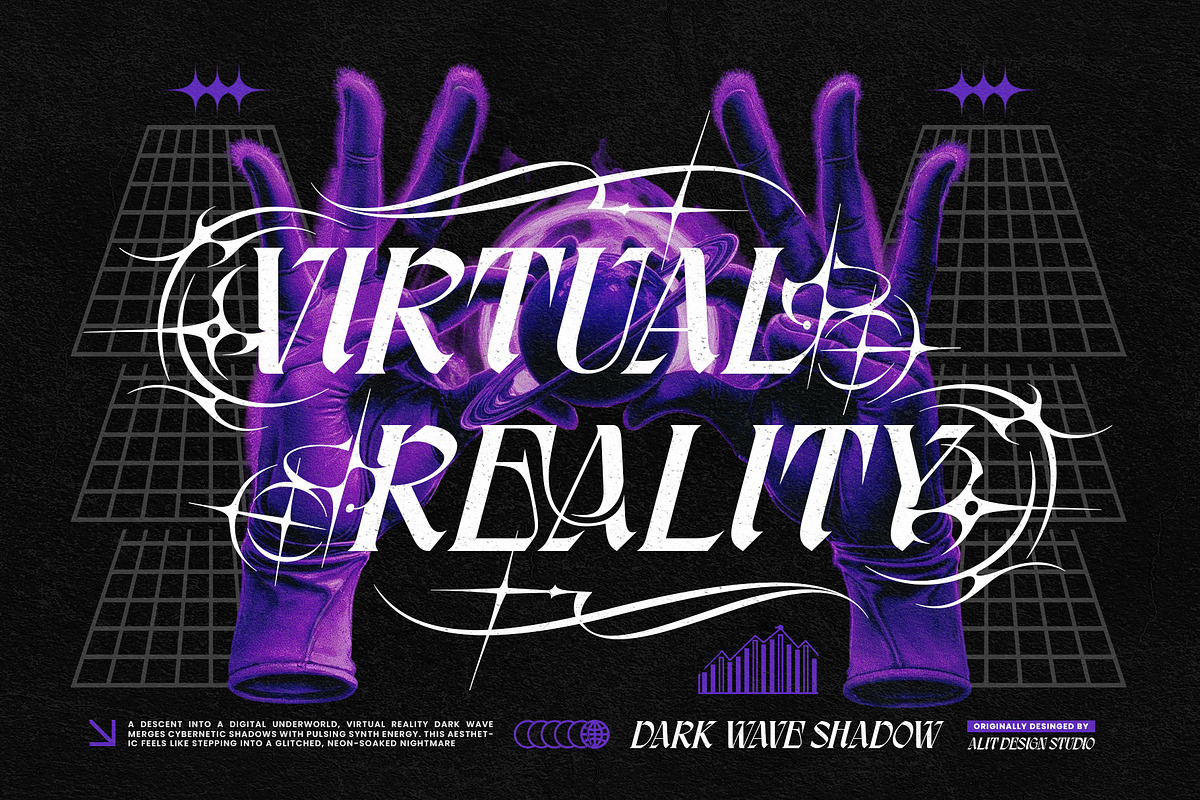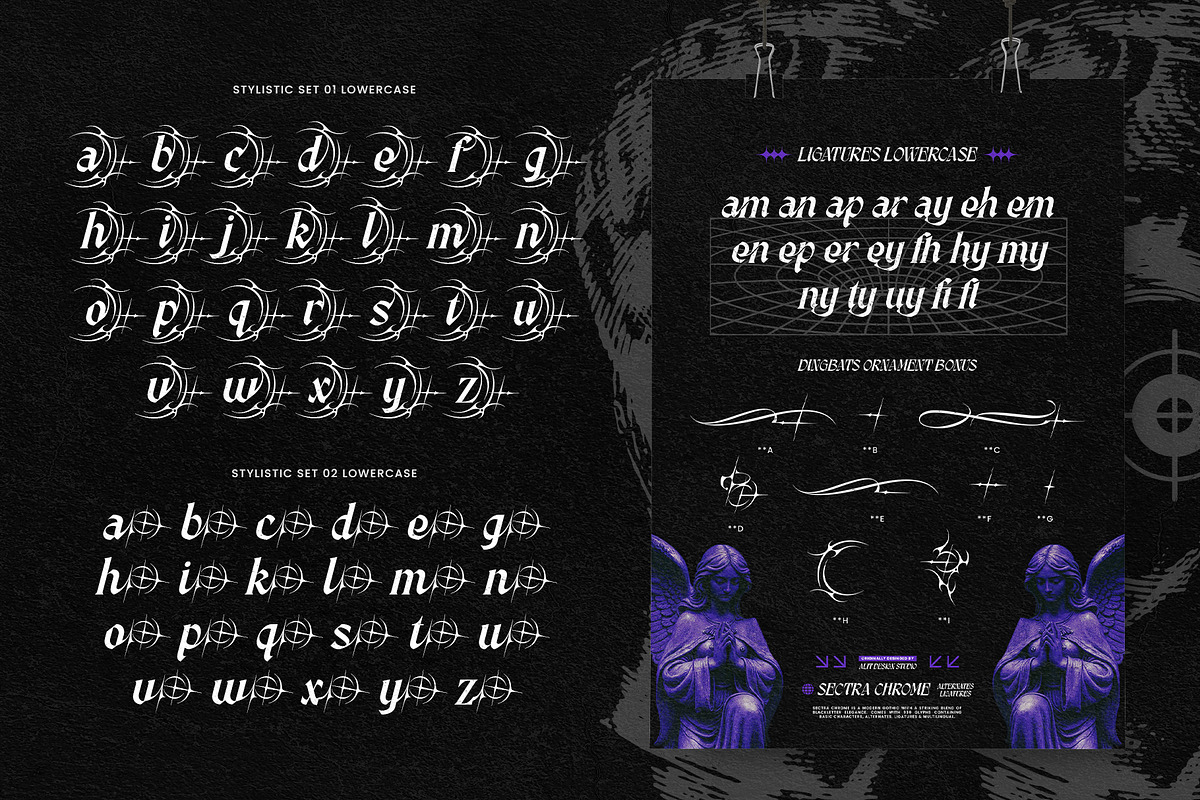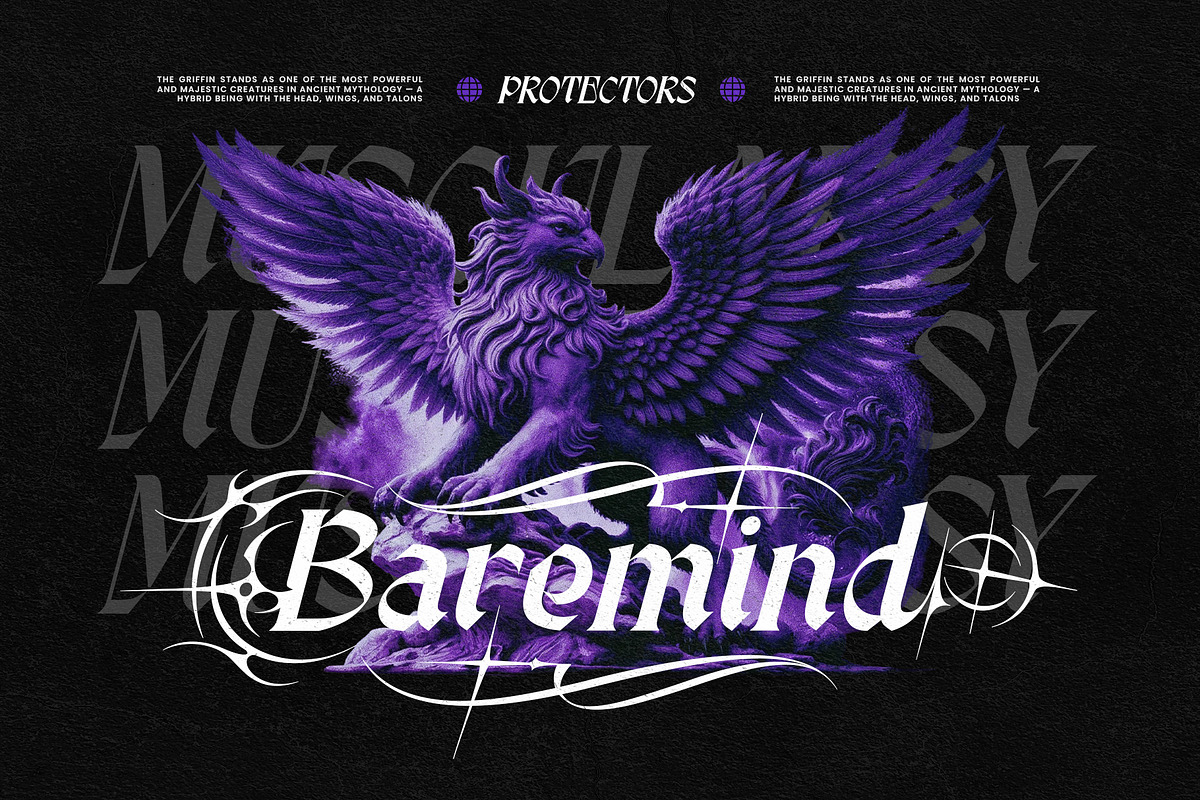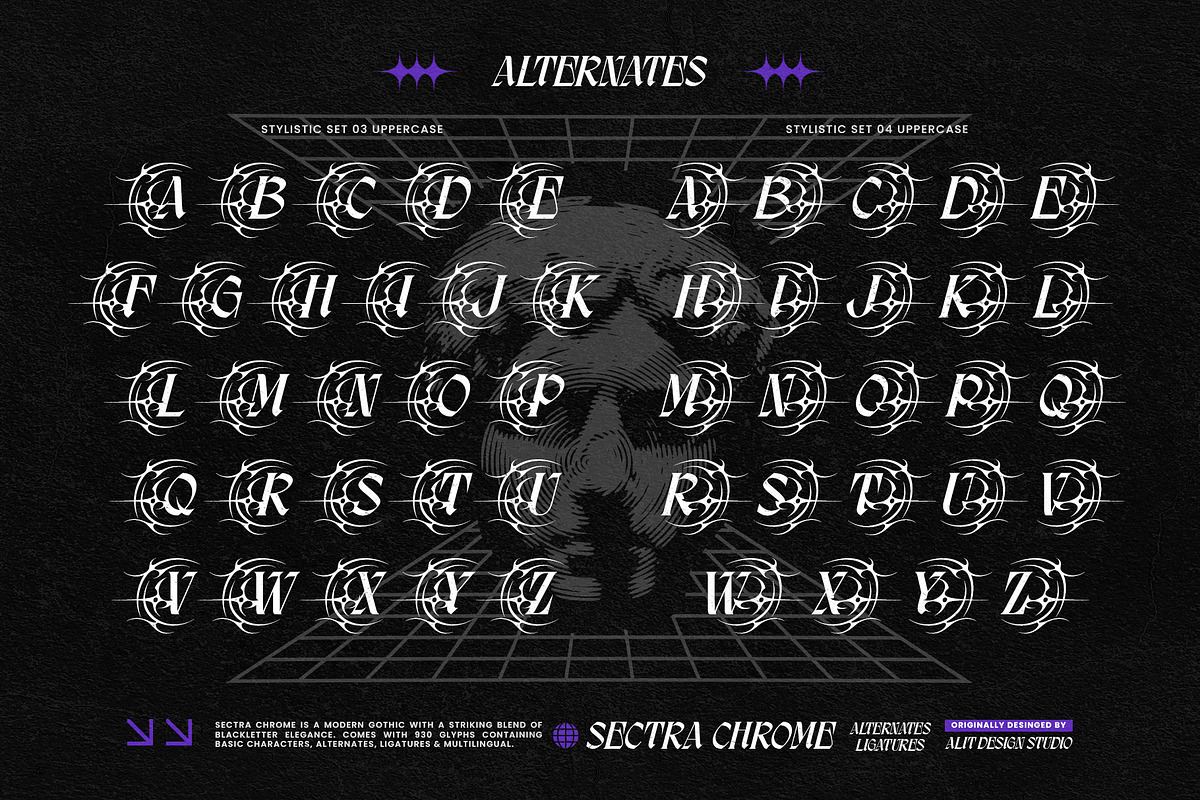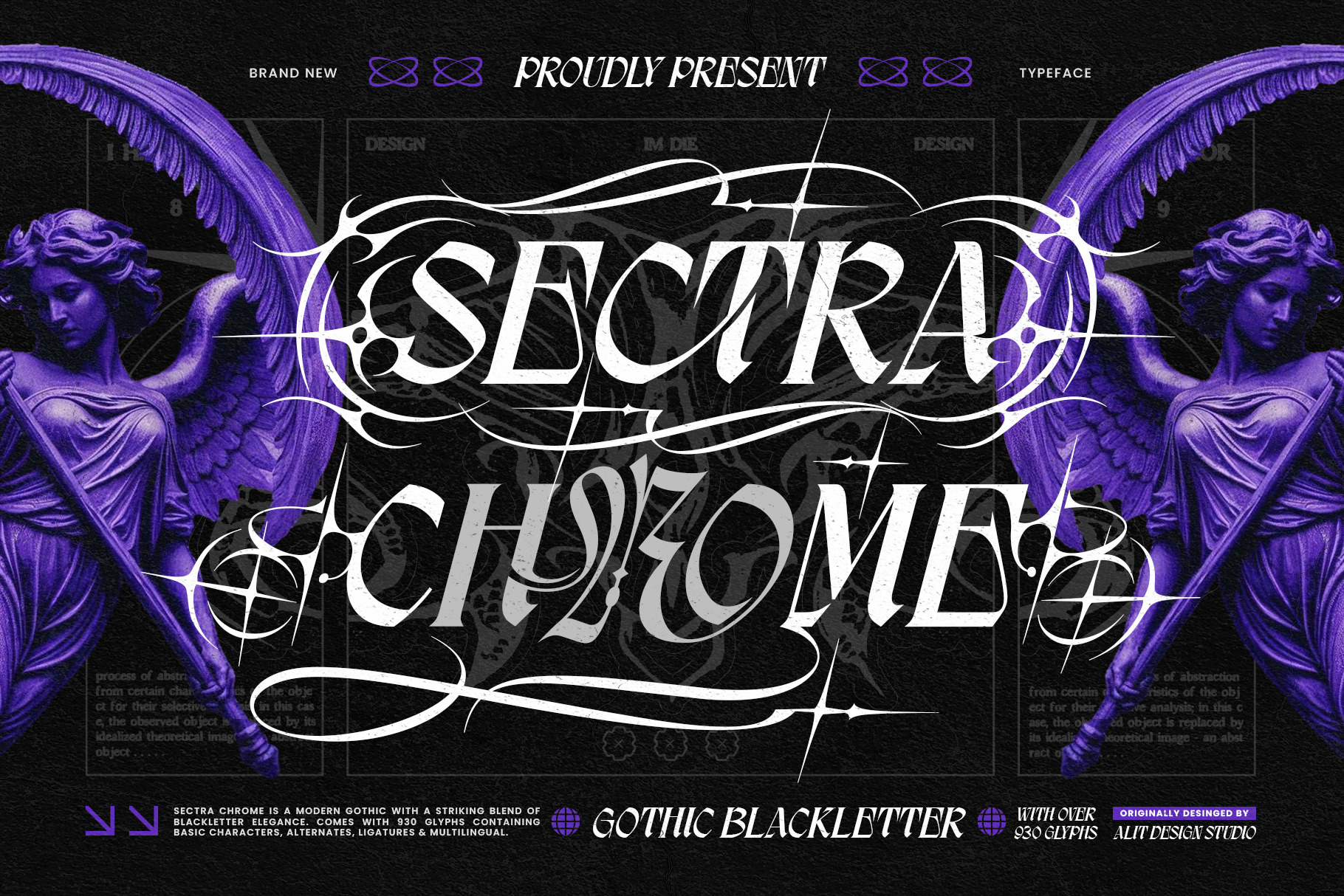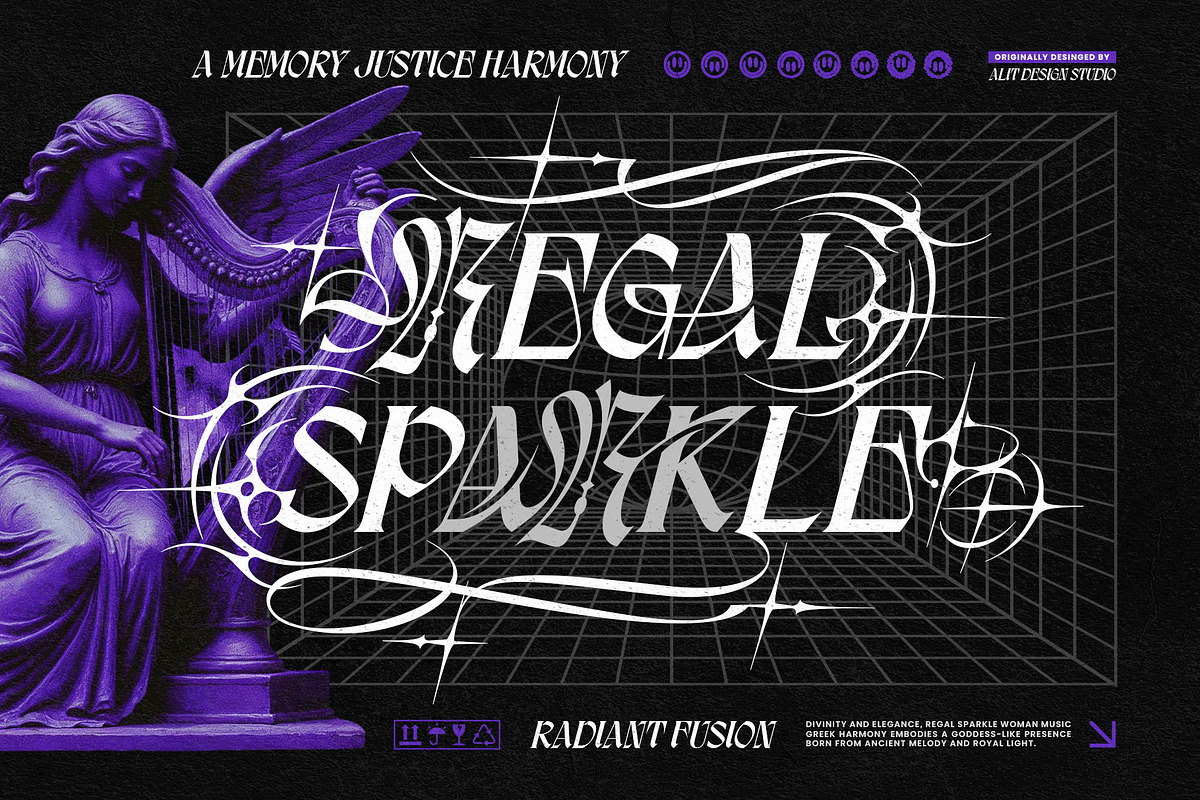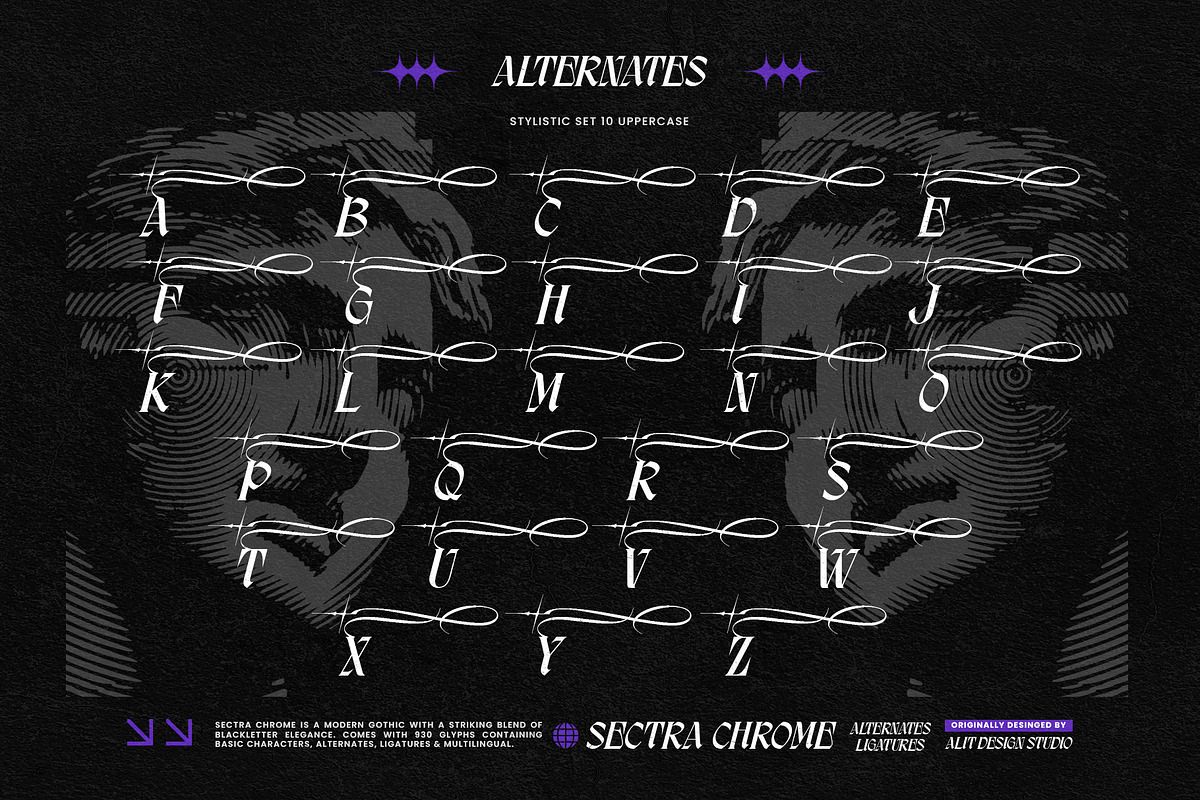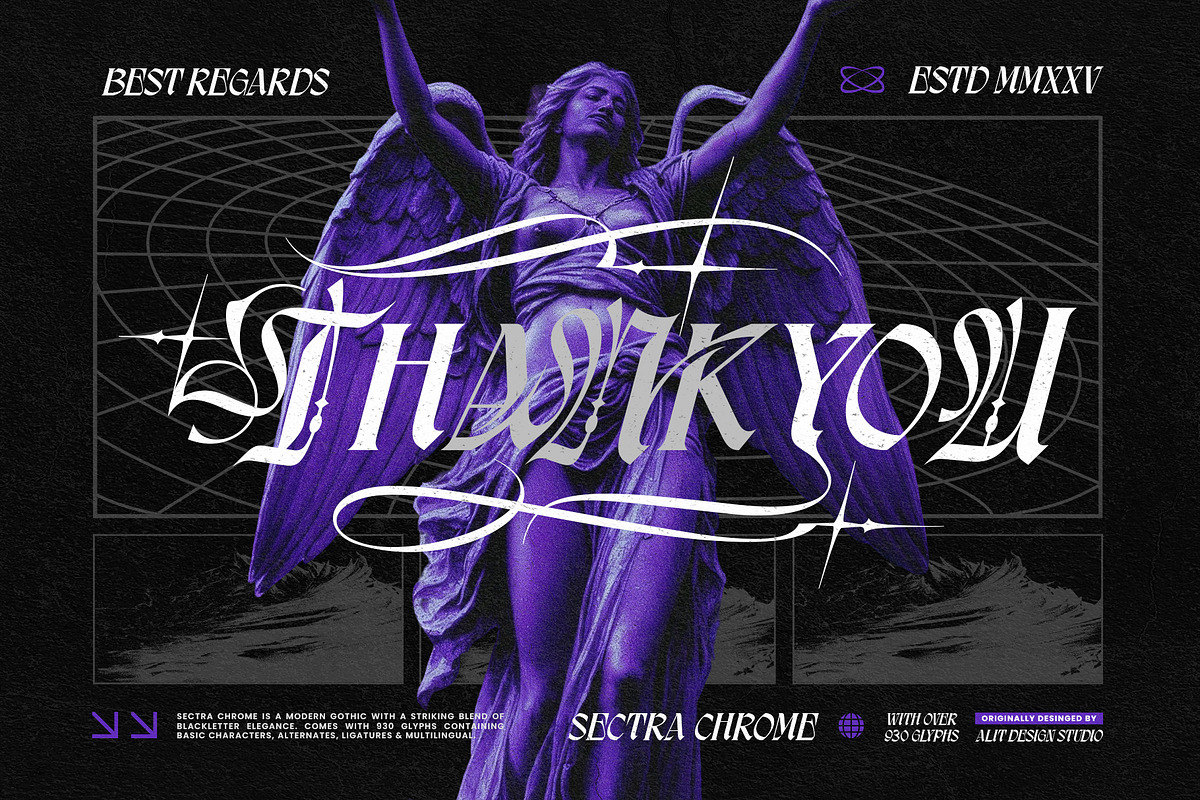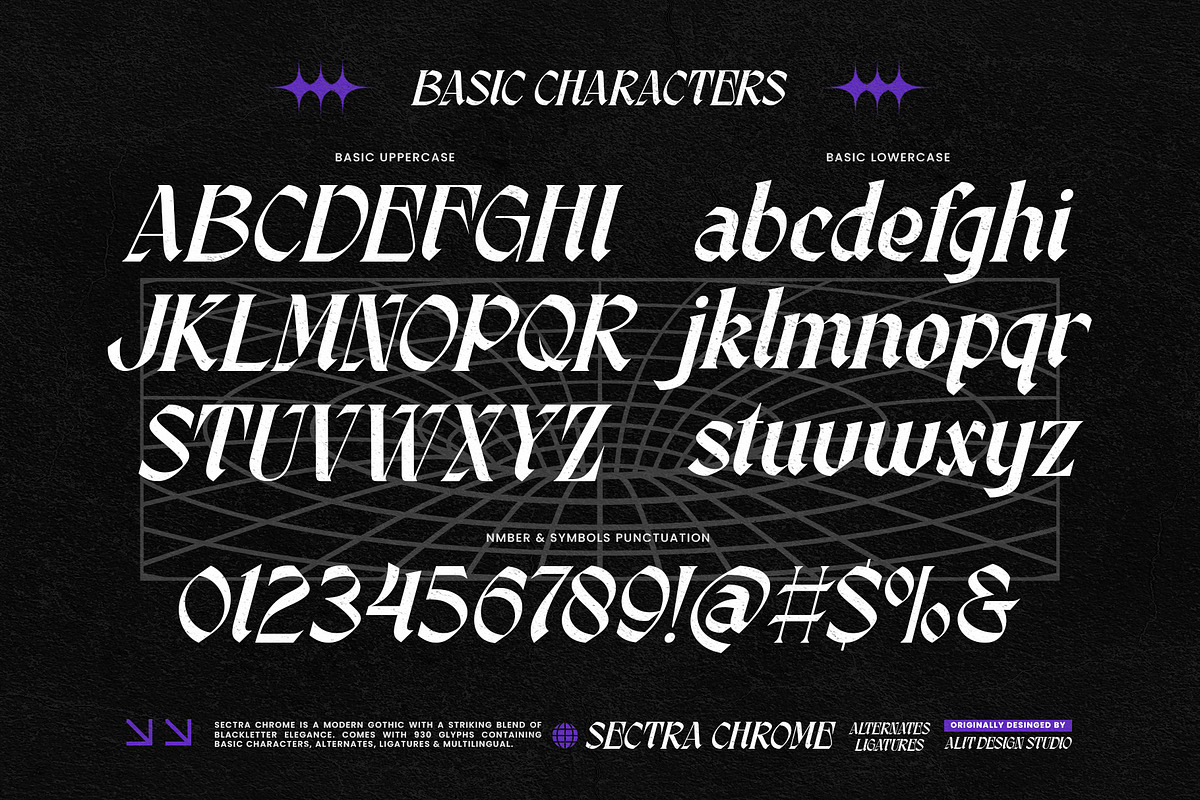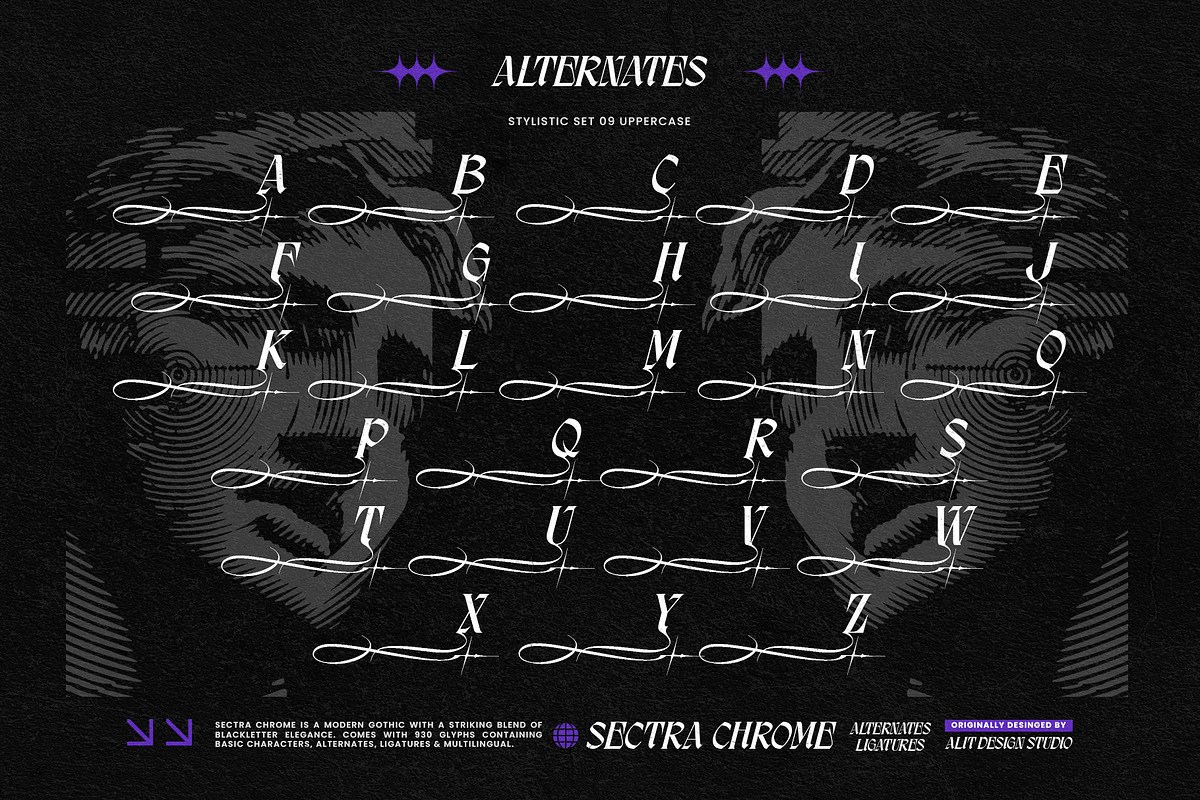
Sectra Chrome Typeface
Unleash the Dark Digital Renaissance.
Introducing Sectra Chrome, a typographic paradox that bridges the gap between medieval tradition and futuristic rebellion. This is not your average blackletter; it is a Modern Gothic masterpiece designed for the bold.
Sectra Chrome takes the sharp, rhythmic strokes of classic calligraphy and infuses them with the aggressive, polished energy of Y2K chrome aesthetics and acid graphics. It is sharp, intricate, and unapologetically distinct.
Why Sectra Chrome? Designed for visual dominance, Sectra Chrome is engineered to be the centerpiece of any design. Whether you are crafting high-end streetwear, heavy metal album covers, or edgy gaming branding, this font delivers a visual punch that demands attention.
The "Uber-Customizable" Experience: With a staggering 930+ Glyphs, Sectra Chrome puts the power of customization in your hands. It features extensive Stylistic Sets that transform standard characters into ornamental works of art—complete with chrome spikes, circular frames, and decorative swashes. You aren't just typing; you are building a logo.
- Massive Glyph Library: Includes over 930 glyphs, giving you endless possibilities to mix and match.
- Insane Alternates: Features multiple Stylistic Sets (SS01-SS04) offering variations from sharp, readable serifs to complex, decorative distinct characters wrapped in chrome-style fractals.
- Modern Gothic Aesthetic: The perfect blend of "Blackletter Elegance" and "Cyberpunk/Y2K" vibes.
- Versatile Ligatures: Custom ligatures that ensure perfect flow and unique word shapes.
- Multilingual Support: extensive language support to reach a global audience.
- Streetwear & Apparel: Create back prints and logos that rival top urban brands.
- Music Industry: Ideal for Metal, Phonk, Trap, and Electronic album covers or merchandise.
- Branding & Logos: Build unique wordmarks without needing to draw from scratch.
- Editorial & Posters: Headlines that scream "edgy" and "contemporary."
- Game Design: Titles for RPGs, dark fantasy, or sci-fi shooters.